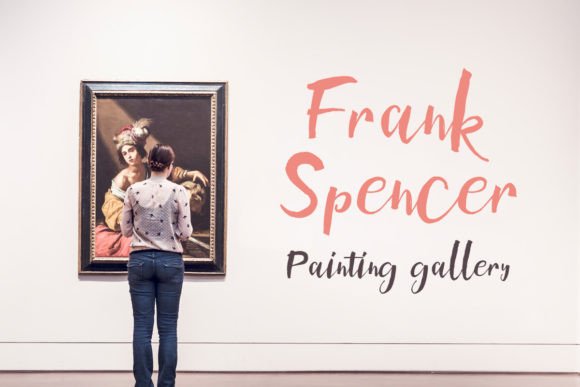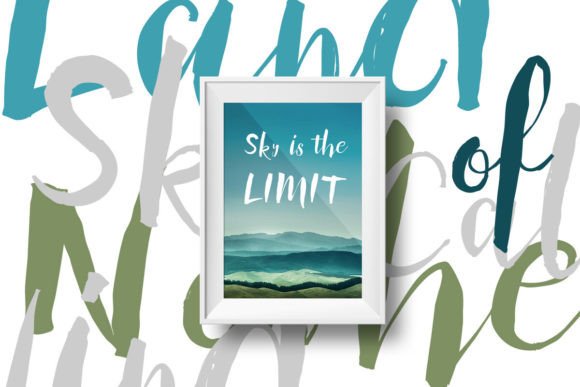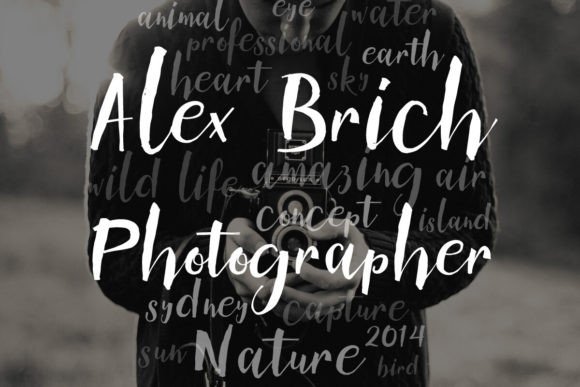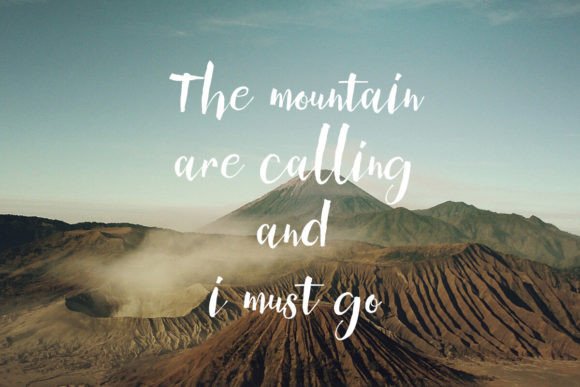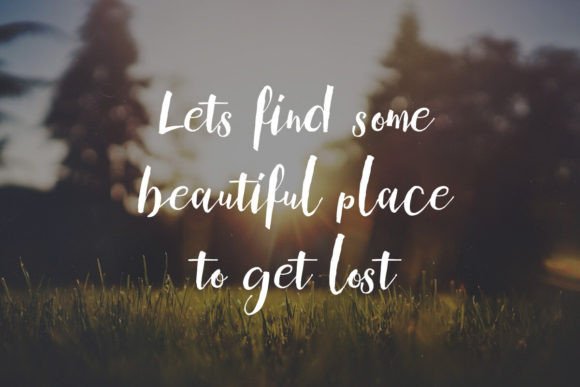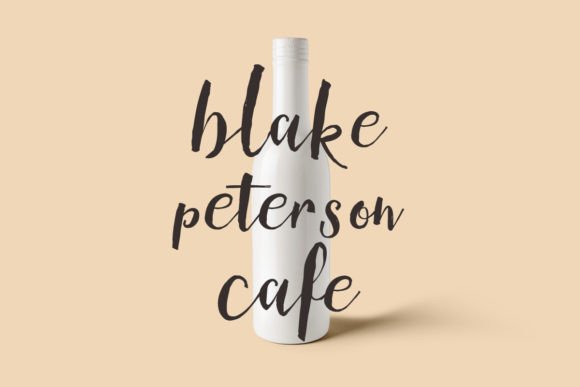
Introduction to Gothup Font Font
Fonts play a crucial role in design, and the Gothup Font font is a typeface that brings both character and versatility to any project. Whether you’re working on a branding project, a website, or a print design, the Gothup Font font offers a unique style that can elevate your work.
Introducing Gothup Font.
Gothup is script brush font, every single letter has been uniquely crafted This font includes a beautiful alternate glyph.
Key Features of Gothup Font Font
Why Choose Gothup Font Font?
The Gothup Font font is more than just a typeface – it’s a design tool that helps you communicate your message with style and clarity. Its unique character set and versatile design make it suitable for a wide range of applications, from elegant invitations to bold headlines.
With its carefully crafted letterforms and balanced proportions, the Gothup Font font ensures readability and visual appeal across all mediums.
What makes Gothup Font font special?
The Gothup Font font stands out with its unique design, exceptional readability, and versatility across various design applications.